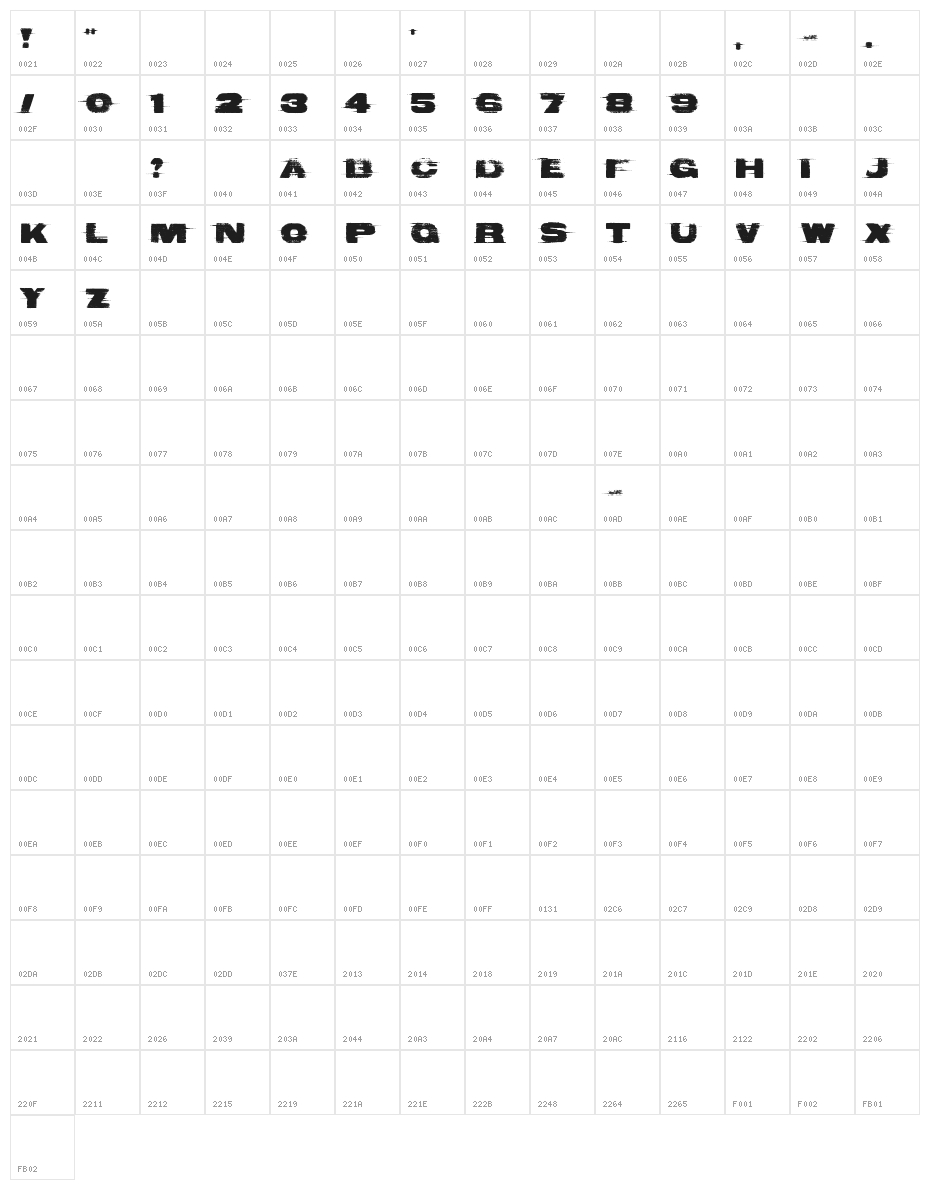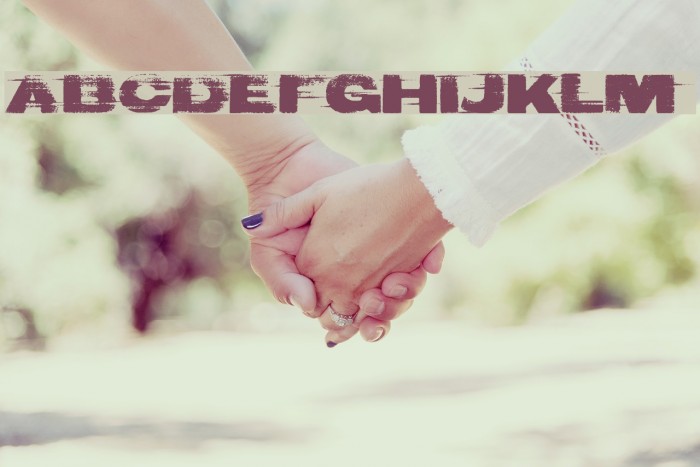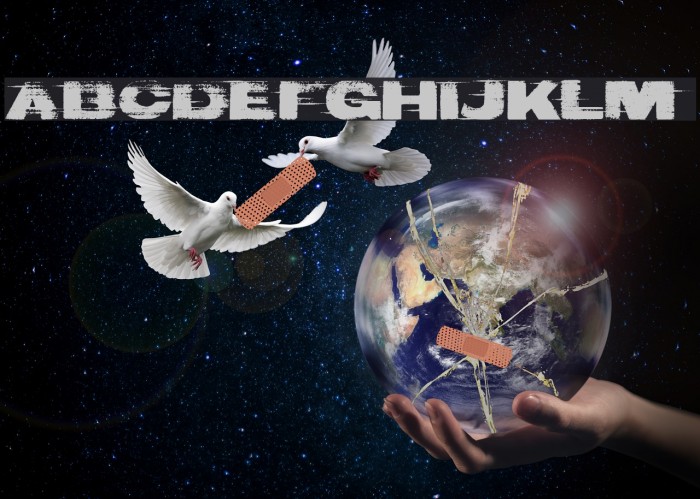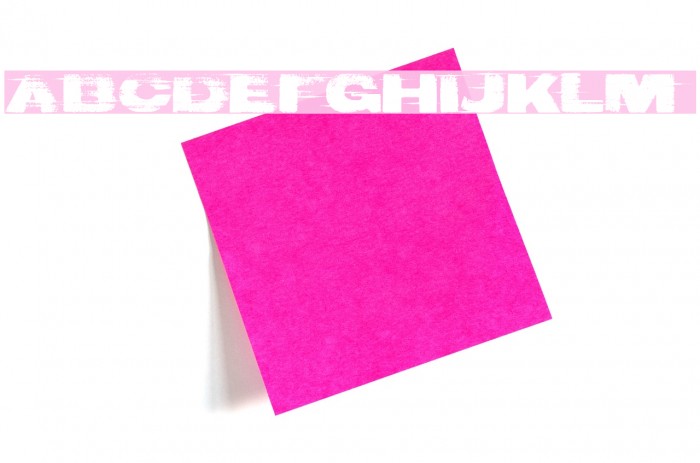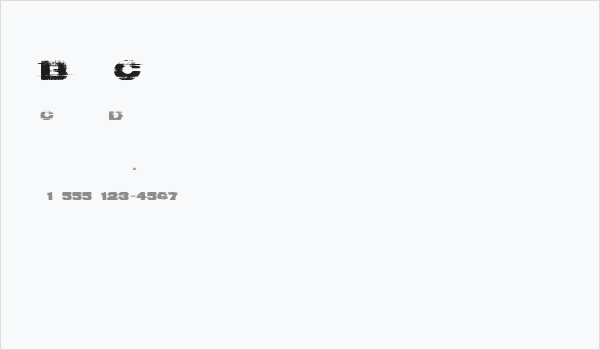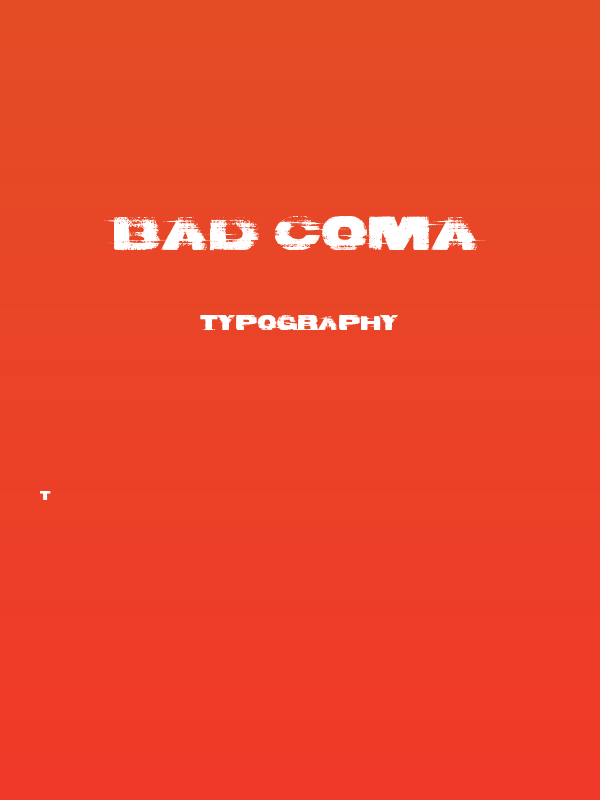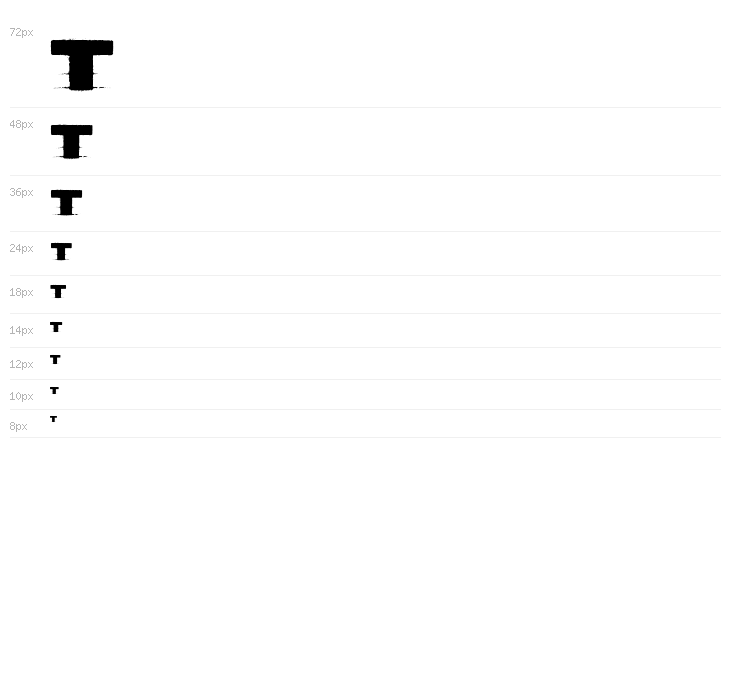
Bad Coma Font
Bad Coma Description
This font features a bold and distressed style, characterized by its rough, textured appearance that mimics a worn or grunge effect. The uppercase letters are prominent and impactful, making a strong visual statement. The numbers and special characters follow the same distressed pattern, ensuring consistency throughout the typeface. The design is highly stylized, with each character appearing as if it has been partially eroded or painted with a dry brush, adding a dynamic and edgy feel to the text.
| Overall Style | Grunge, Urban, Edgy |
| Proposed Projects | Ideal for projects that require a rugged or urban aesthetic, such as music album covers, posters, streetwear branding, or any creative work that benefits from a gritty, raw look. |